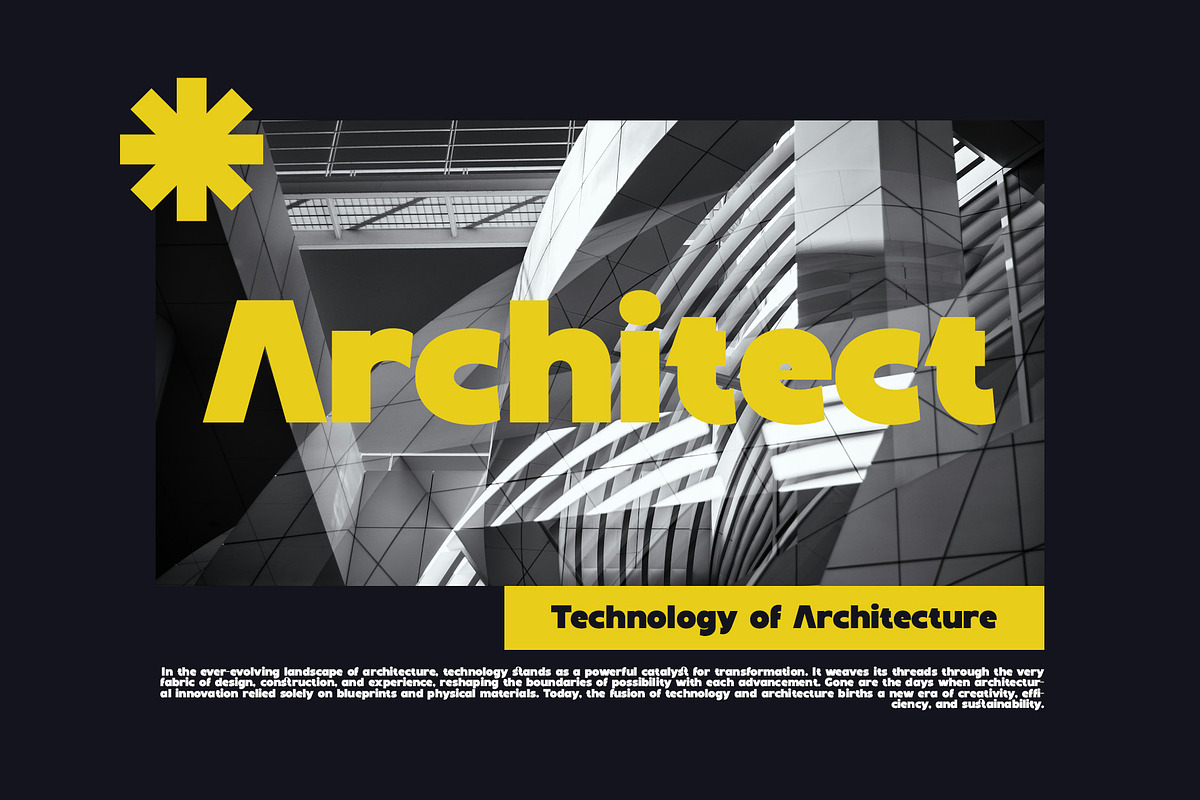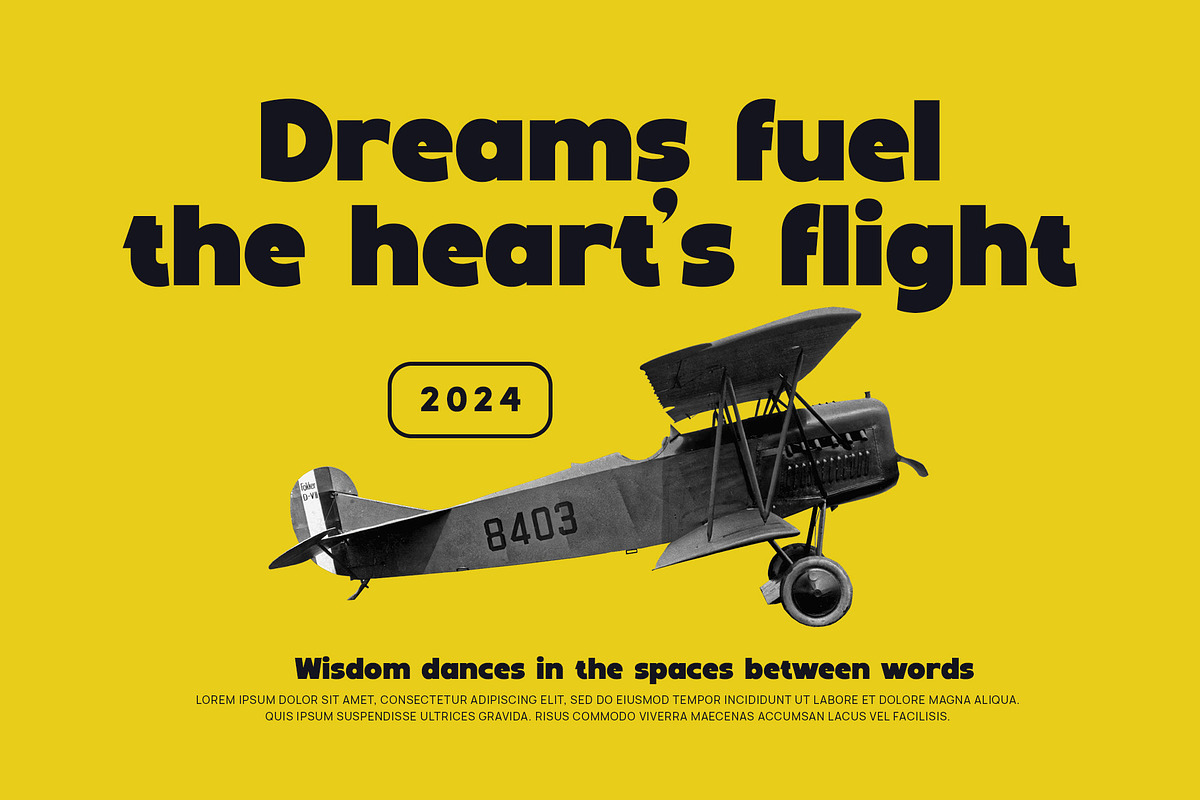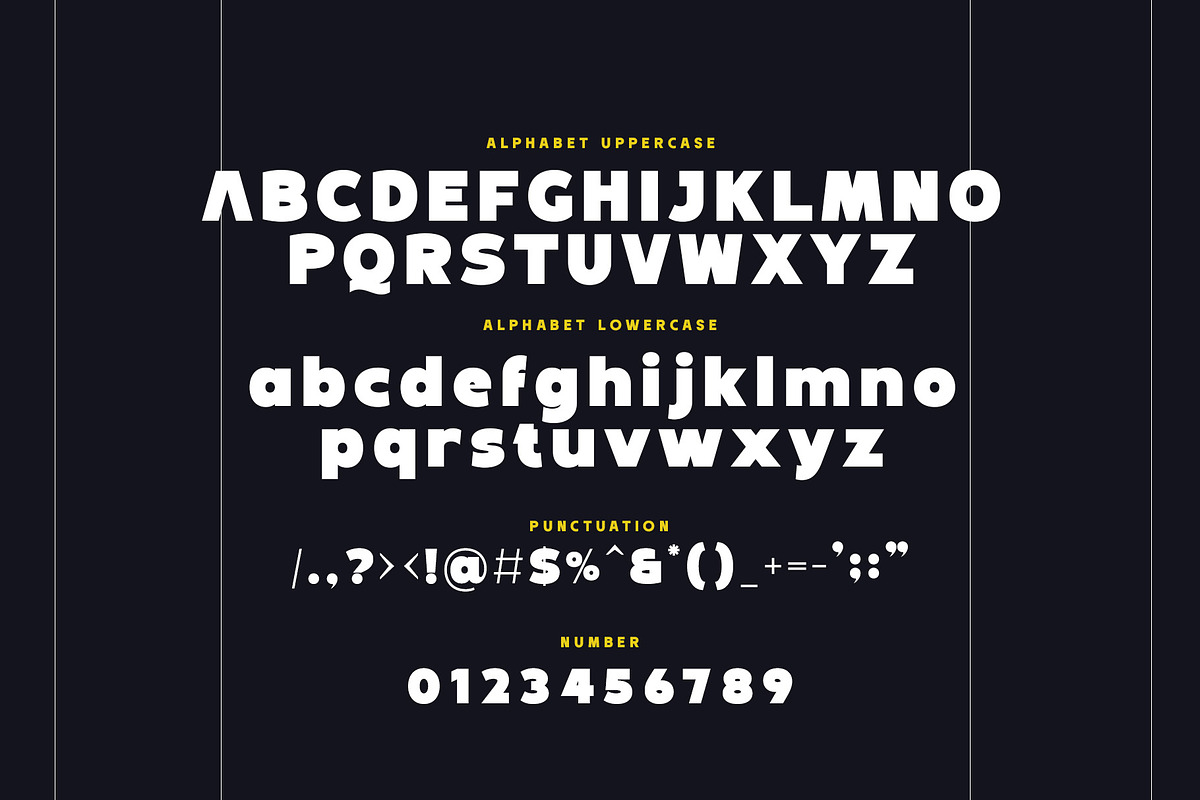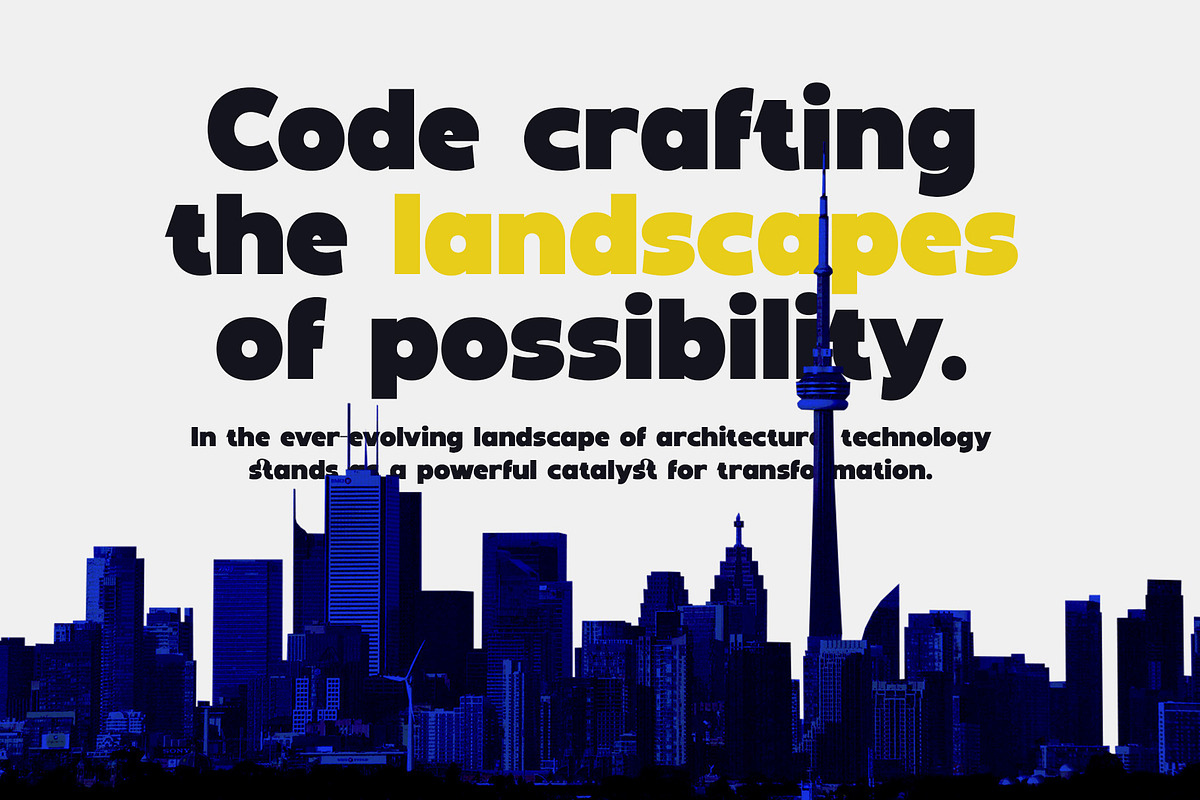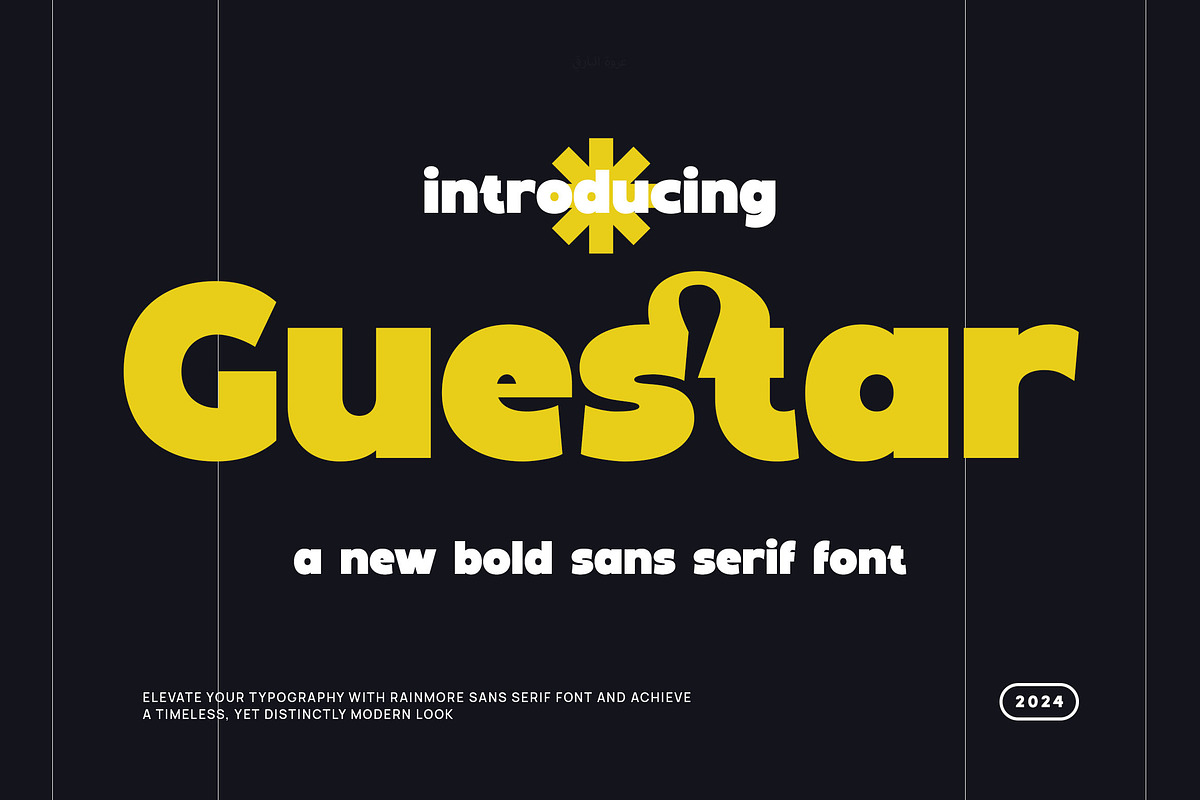
Guestar - Modern Bold Sans Serif
Introducing Guestar - Modern Bold Sans Serif. Guestar is a modern and simple font, best used as a display for headings, logos, branding, magazines, product packaging and invitations. Thank you.